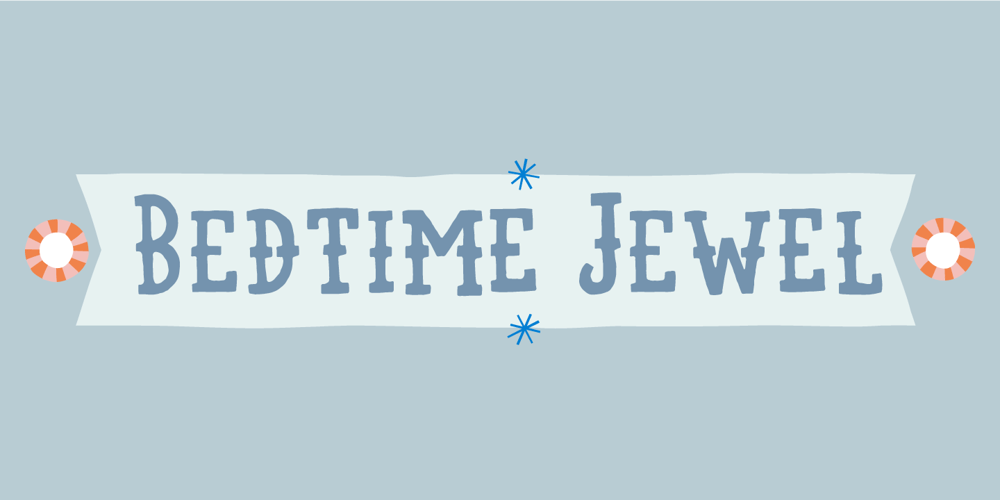
Bedtime Jewel Font Family was designed by Jakob Fischer and published by PizzaDude.dk. Bedtime Jewel contains 2 styles and family package options. Bedtime Jewel was inspired by a kids drawing in the kindergarten, and I did my best to keep the childish approach while keeping the legibility. The result is a charming and naive font with a adventurous twist.Every lowercase letter has 3 different versions and capital letters R, K and Q has a swashy tail.